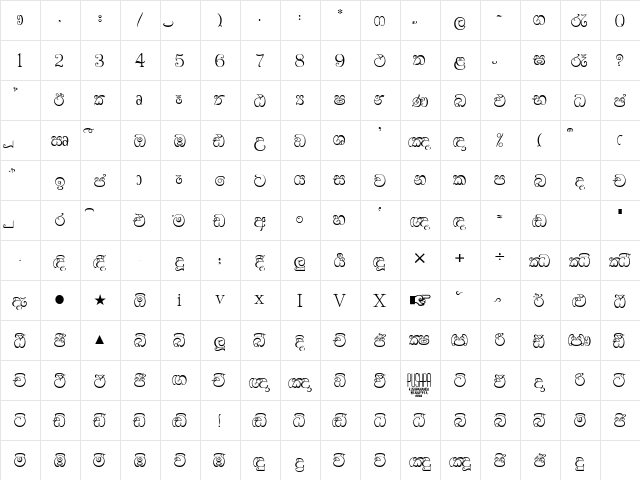
FMArjunn x
Design Context for FMArjunn Typeface
FMArjunn takes a measured approach to typography — its balanced proportions and neutral character make it a reliable workhorse for both digital and print work.